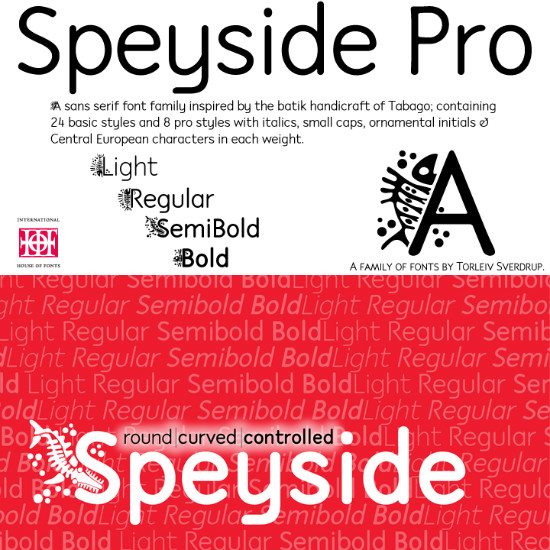
P22 Speyside Font
Speyside is a round, curved and controlled sans serif with an additional set of decorated uppercase letters, initials and small caps. It’s appropriate for text, titling and display. The origin of the name is taken from a small location in Tobago. The font is inspired by the local handicraft, the batik in particular.
Each pro font style includes small caps and decorative initials as well as several OpenType features.